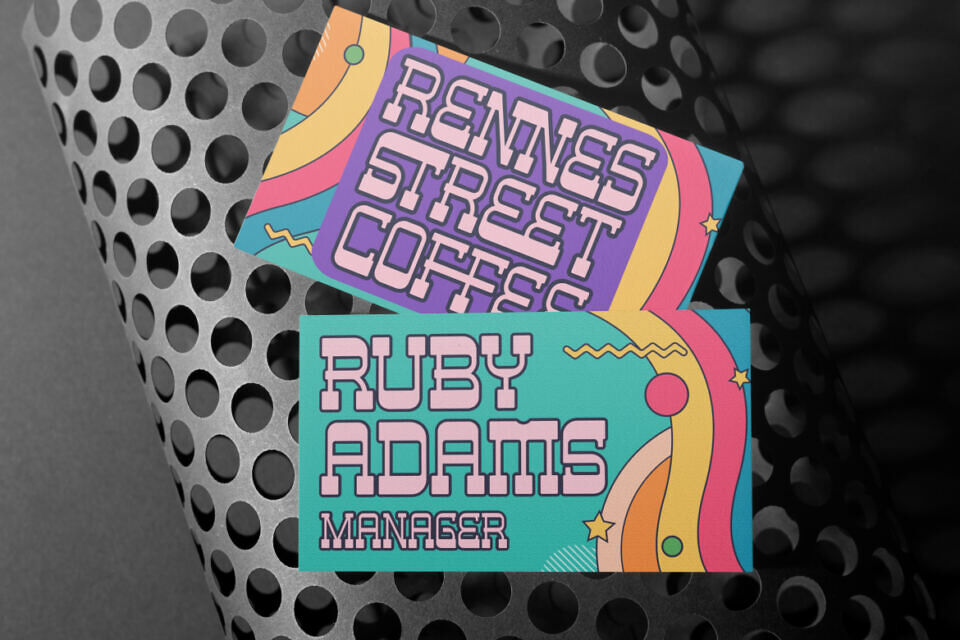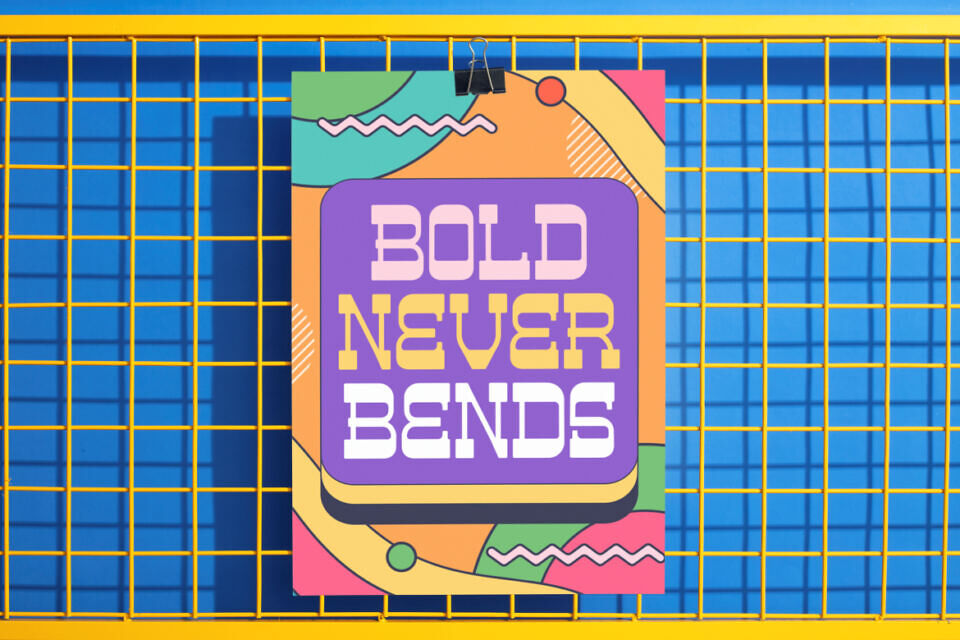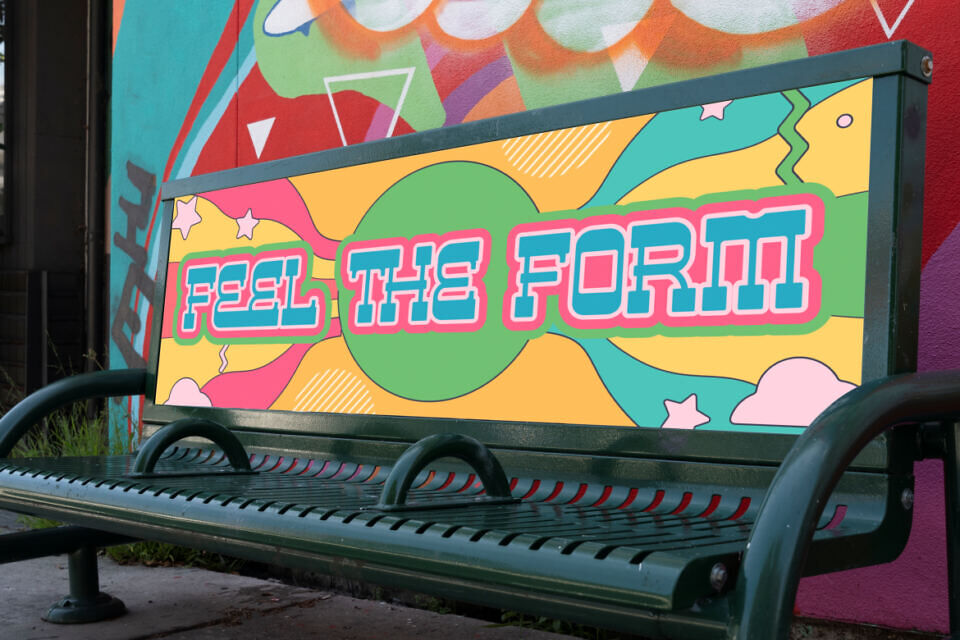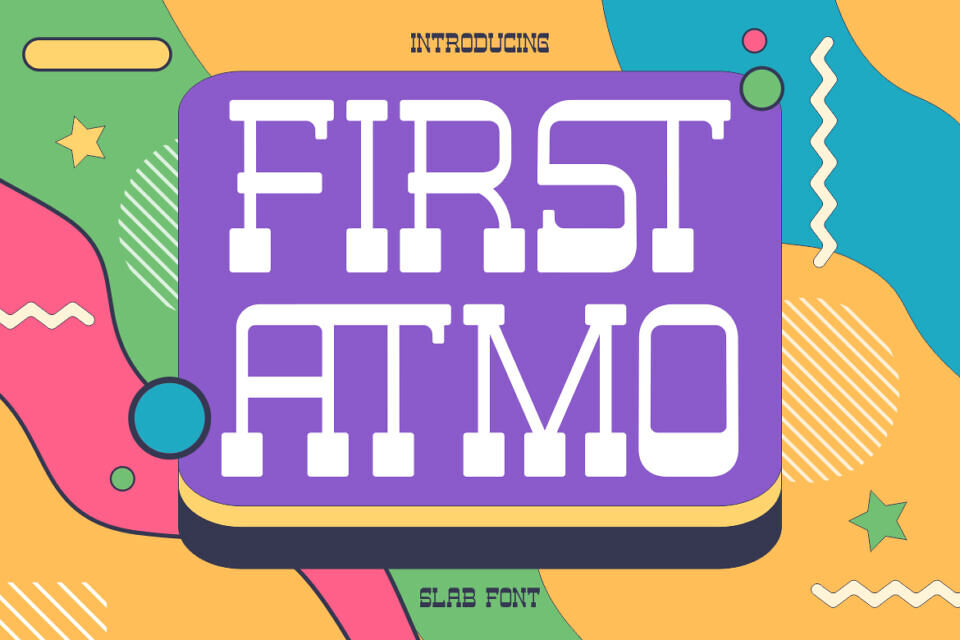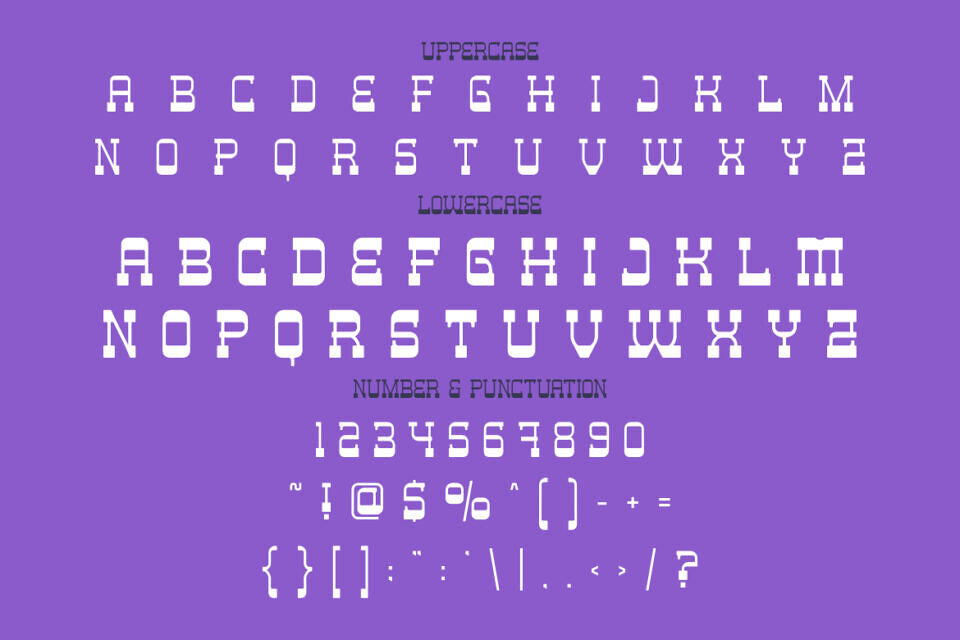
First Atmo Font
First Atmo is a bold, Mexican-inspired slab display font blending strong slab serifs with quirky, rounded counters and geometric terminals. Its all-caps, pixel-perfect design exudes retro modernism and vibrant folk-art flair. Chunky serifs and squared edges deliver personality and power, ideal for logos, posters, packaging, and event invitations.
Versatile for print and digital, First Atmo pairs well with colorful backdrops, making it perfect for lively film titles, retro café logos, or standout business cards, ensuring your message pops with cultural energy and nostalgic charm.